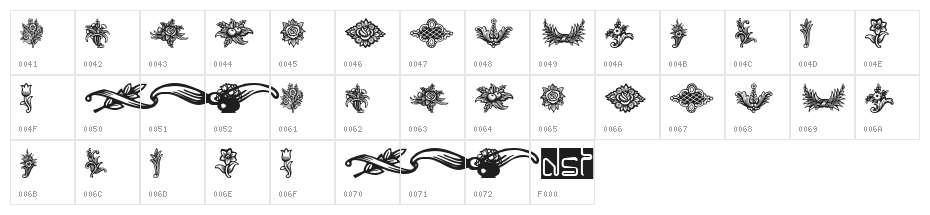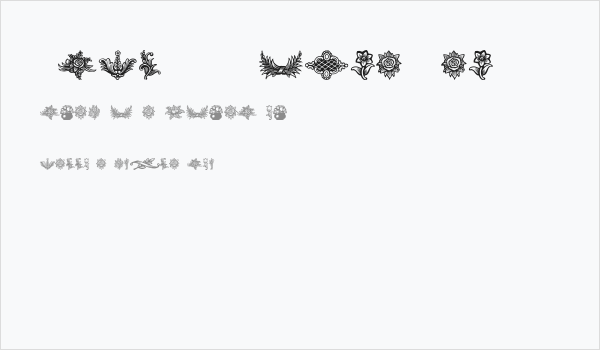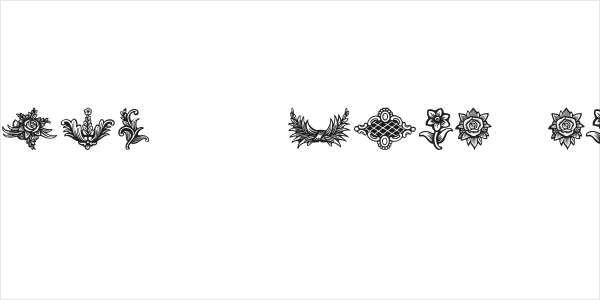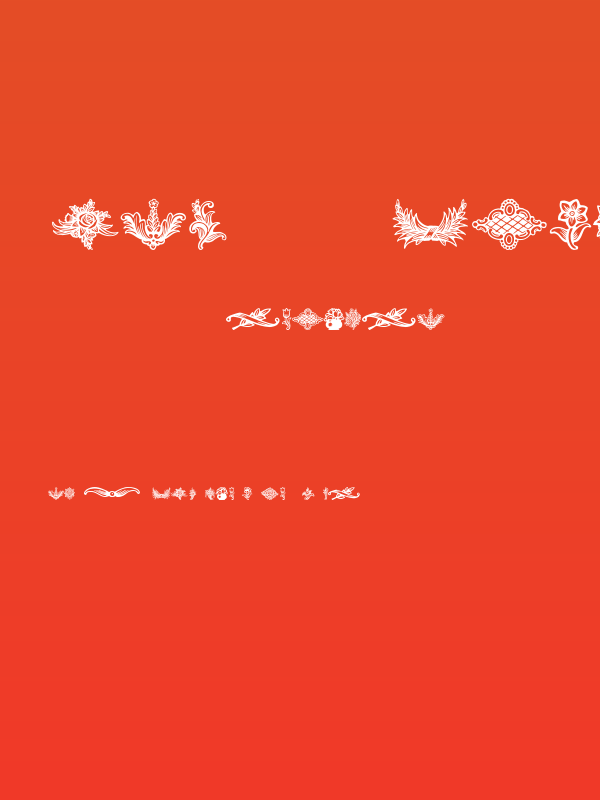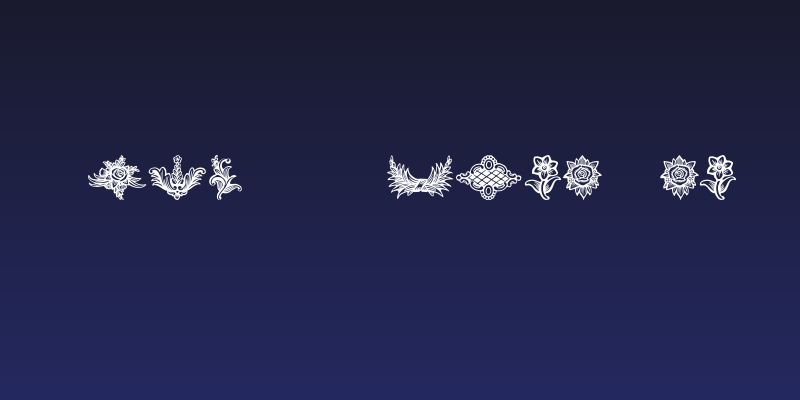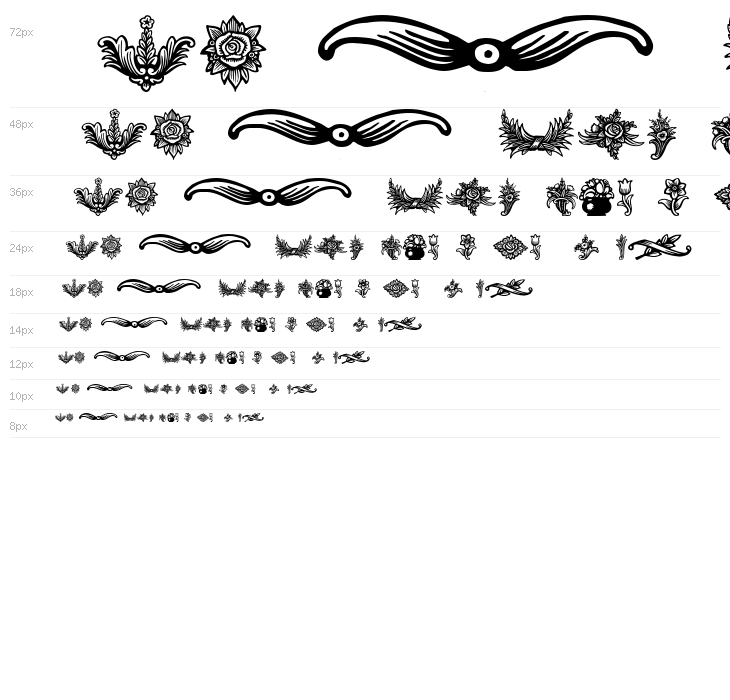
Schluss-Vignetten Font
Schluss-Vignetten Description
A collection of highly decorative, floral, and ornamental vignette symbols with intricate line work and classic embellishments, reminiscent of vintage book or print decorations.
| Overall Style | Vintage, Decorative |
| Use Case | Borders, dividers, embellishments, invitations, certificates |
| Proposed Projects | Book design, invitations, certificates, decorative borders, vintage packaging, ornamental dividers. |